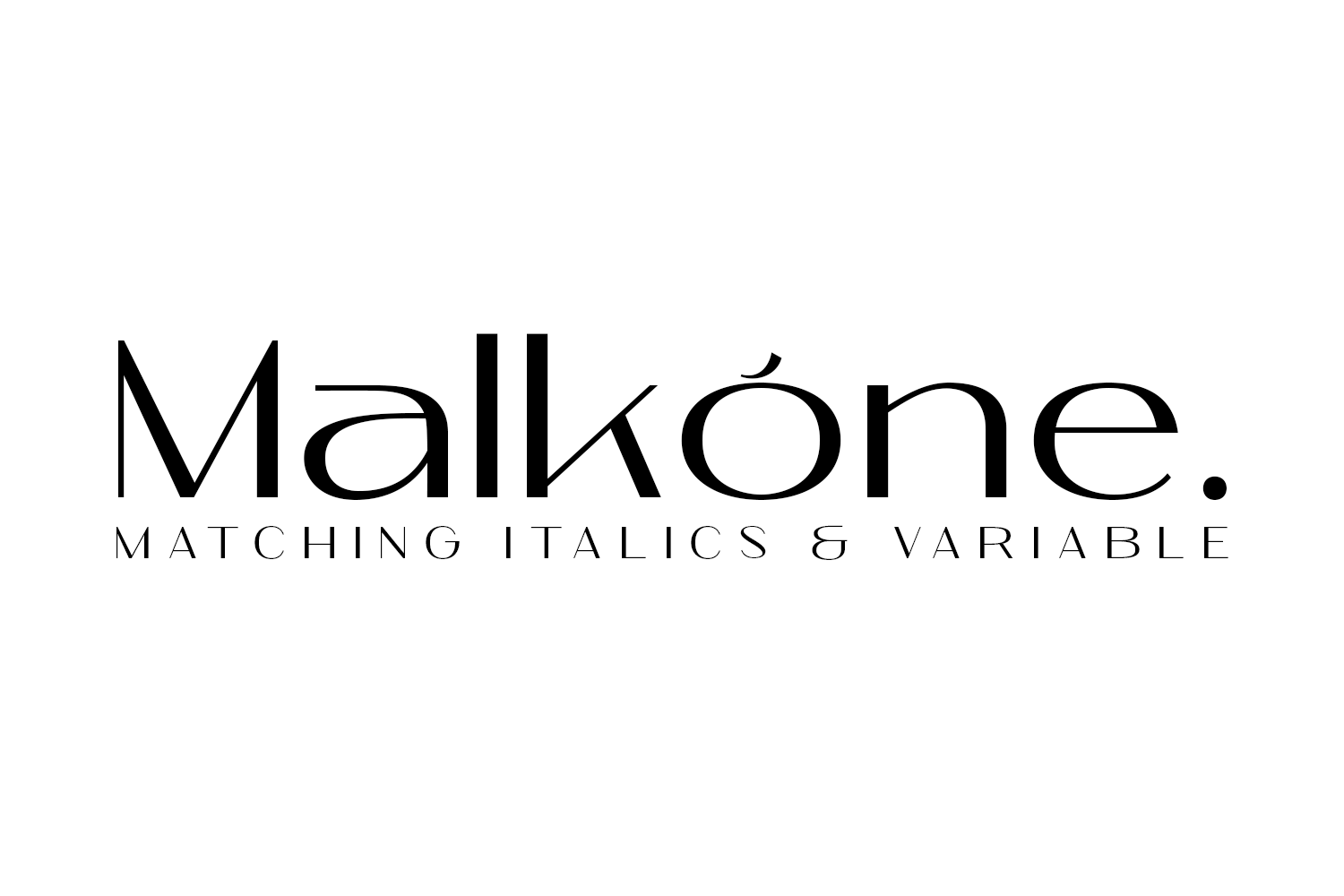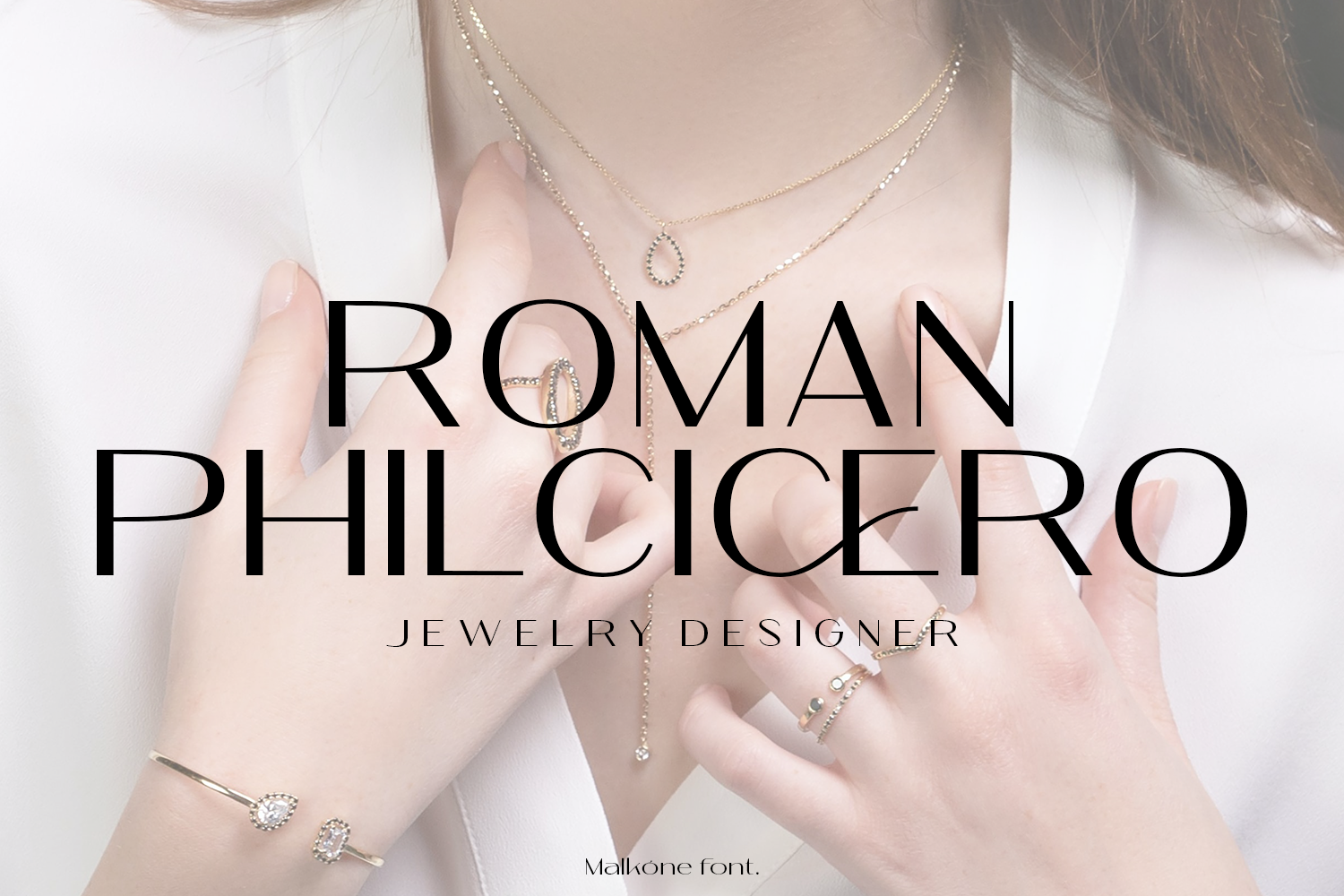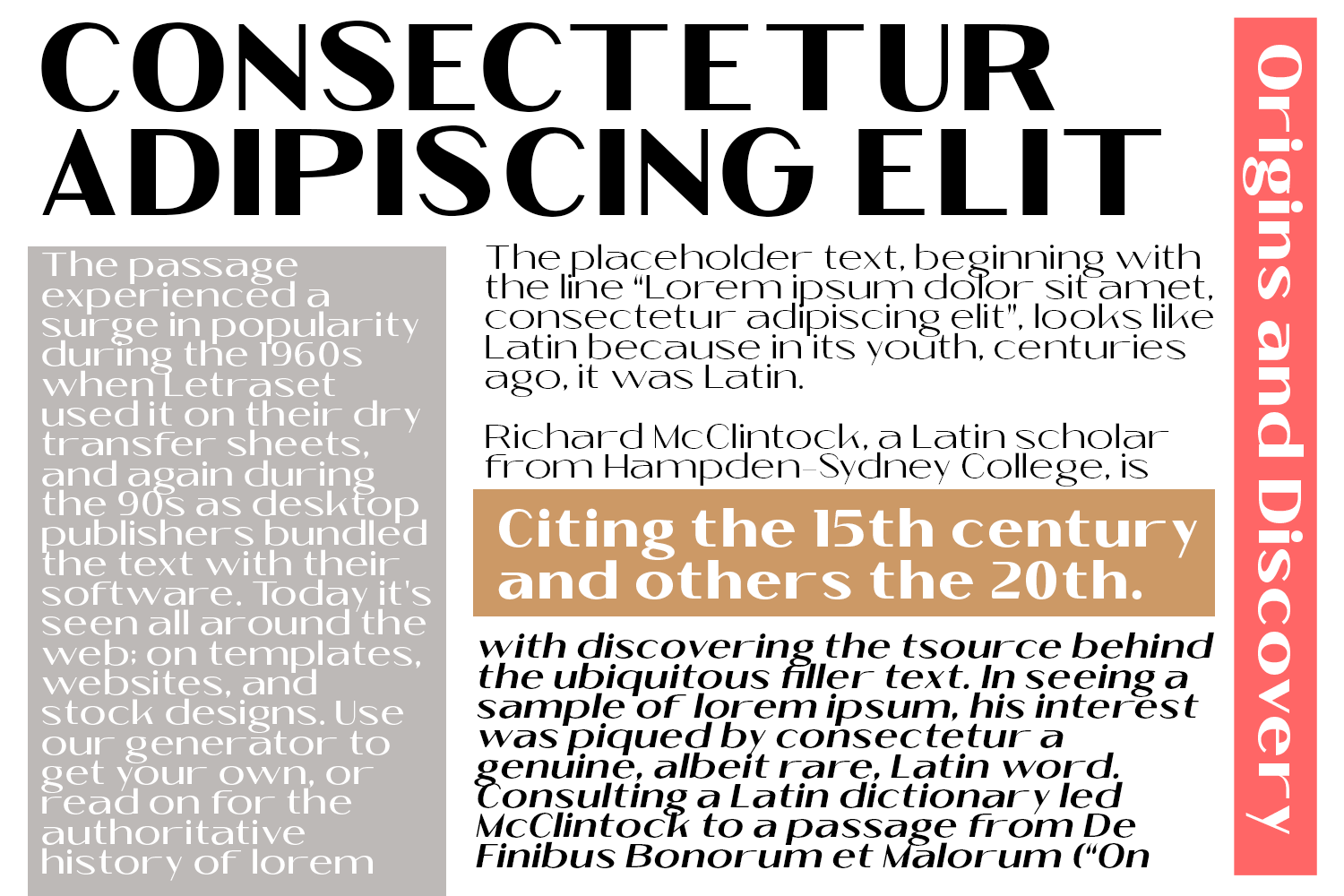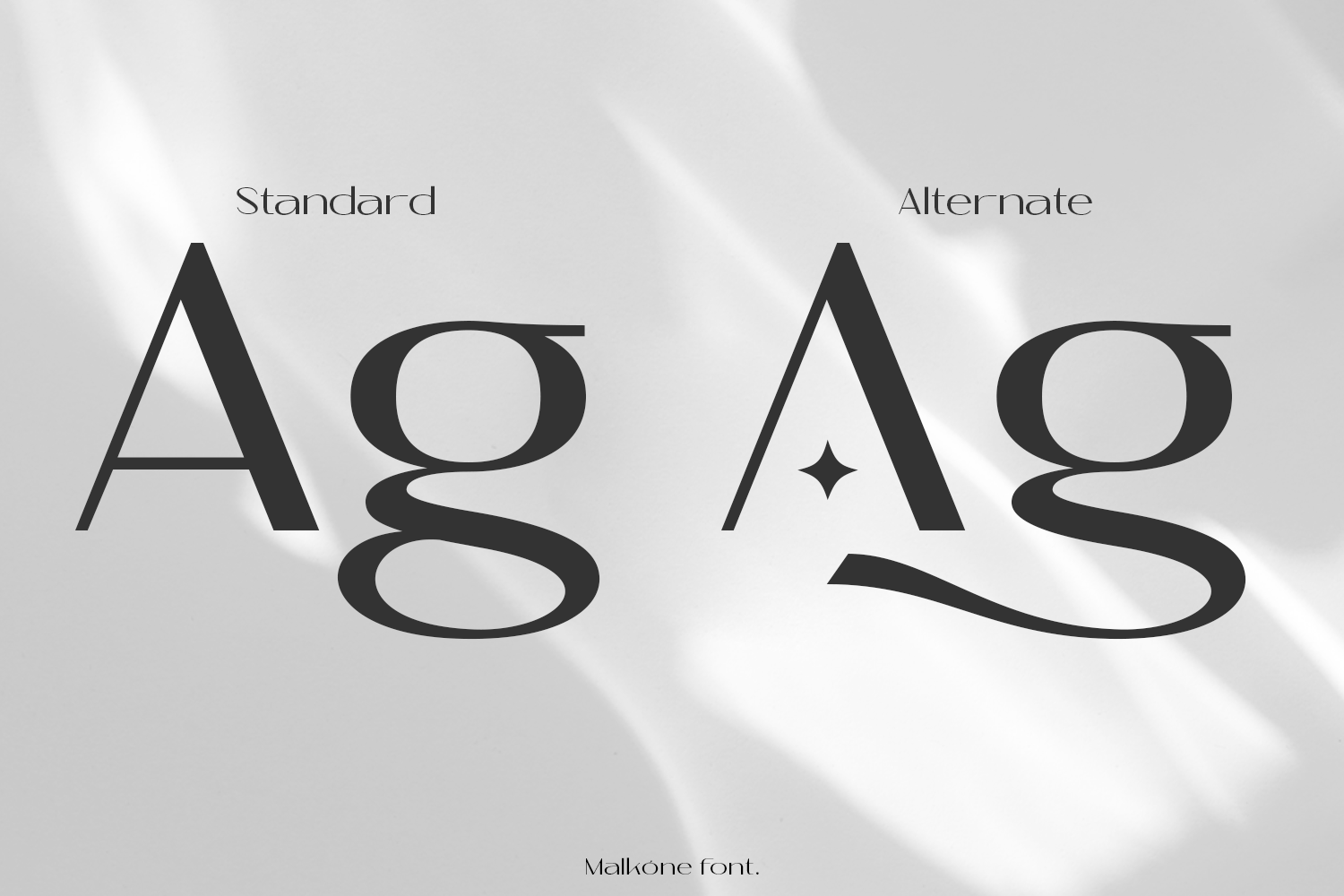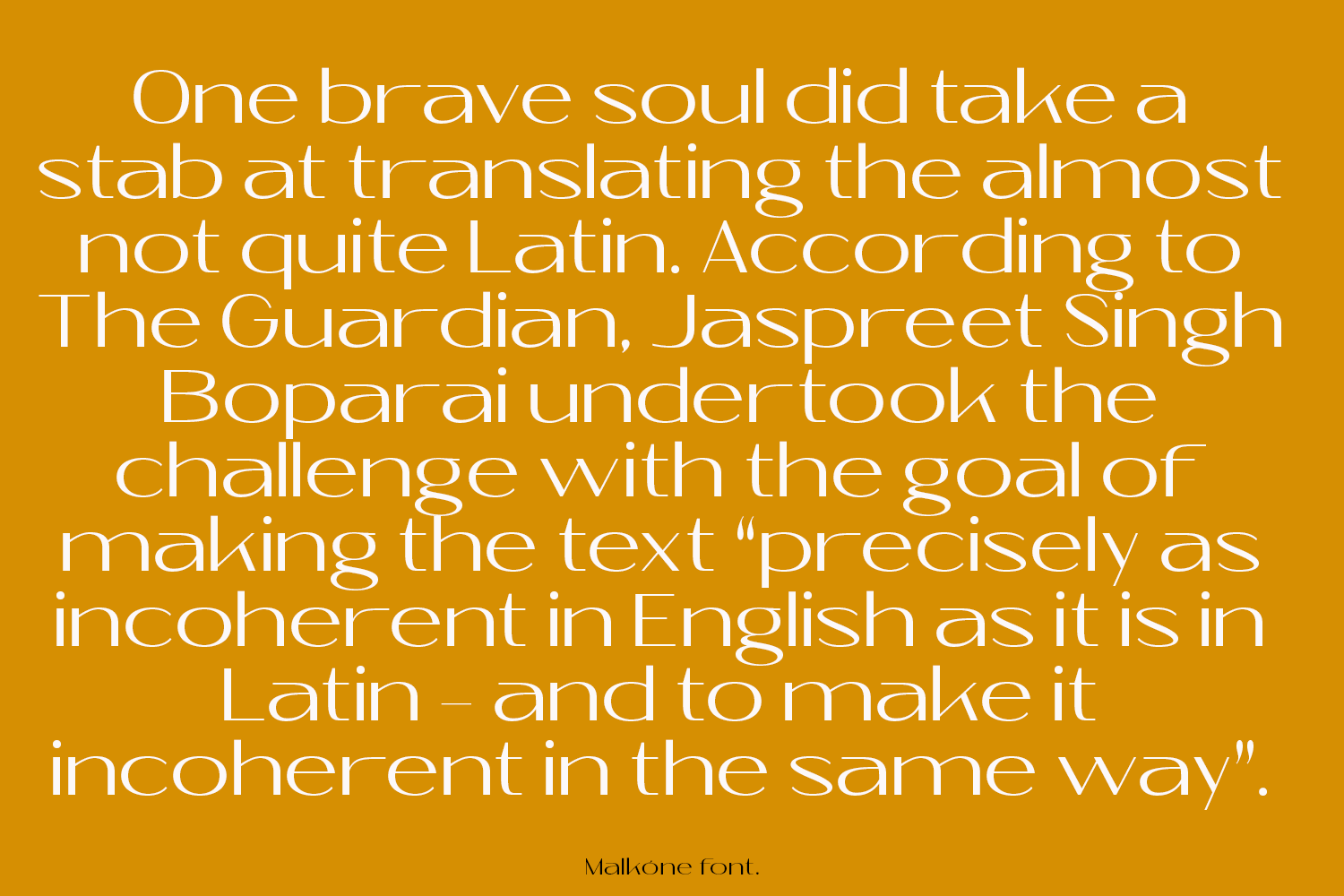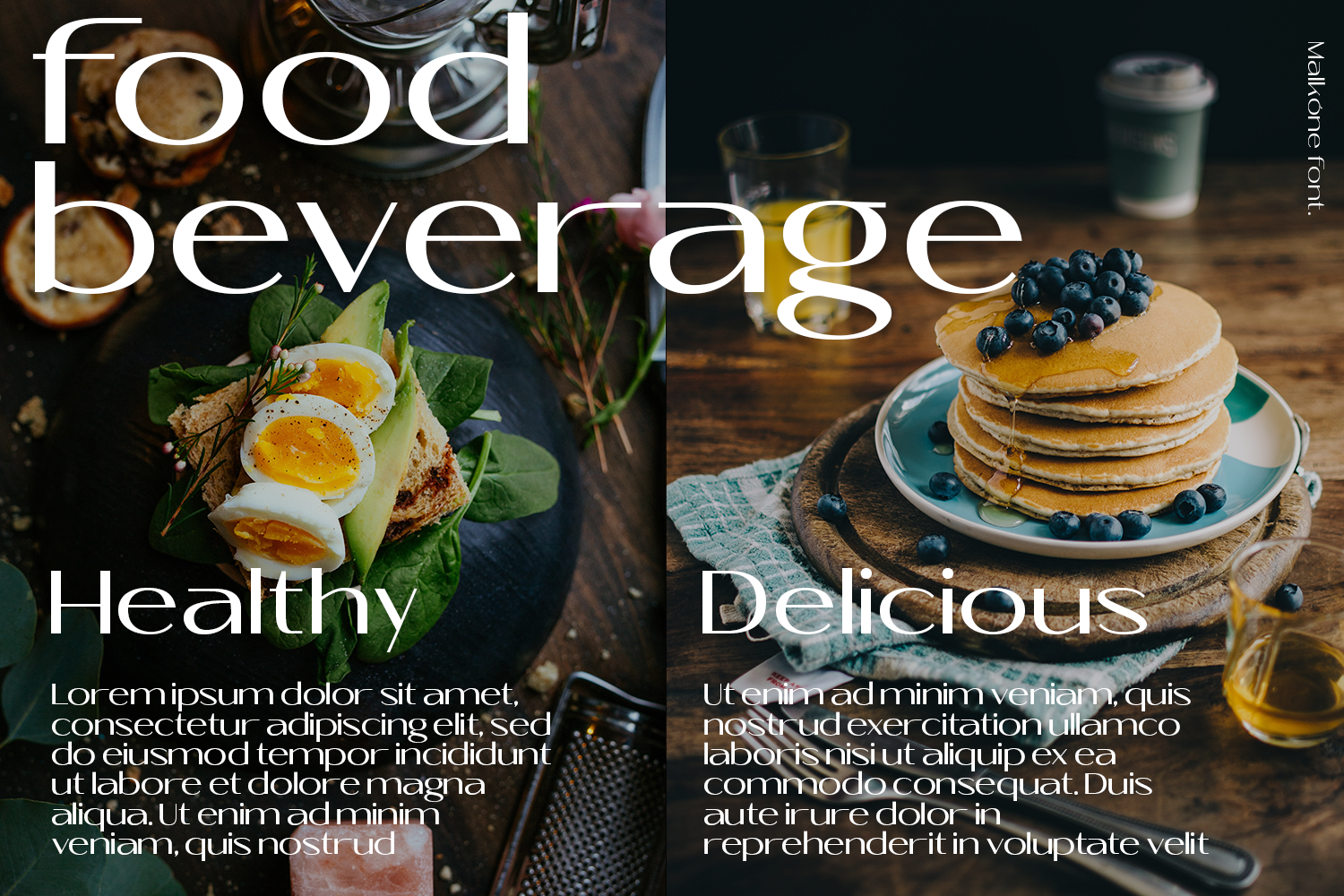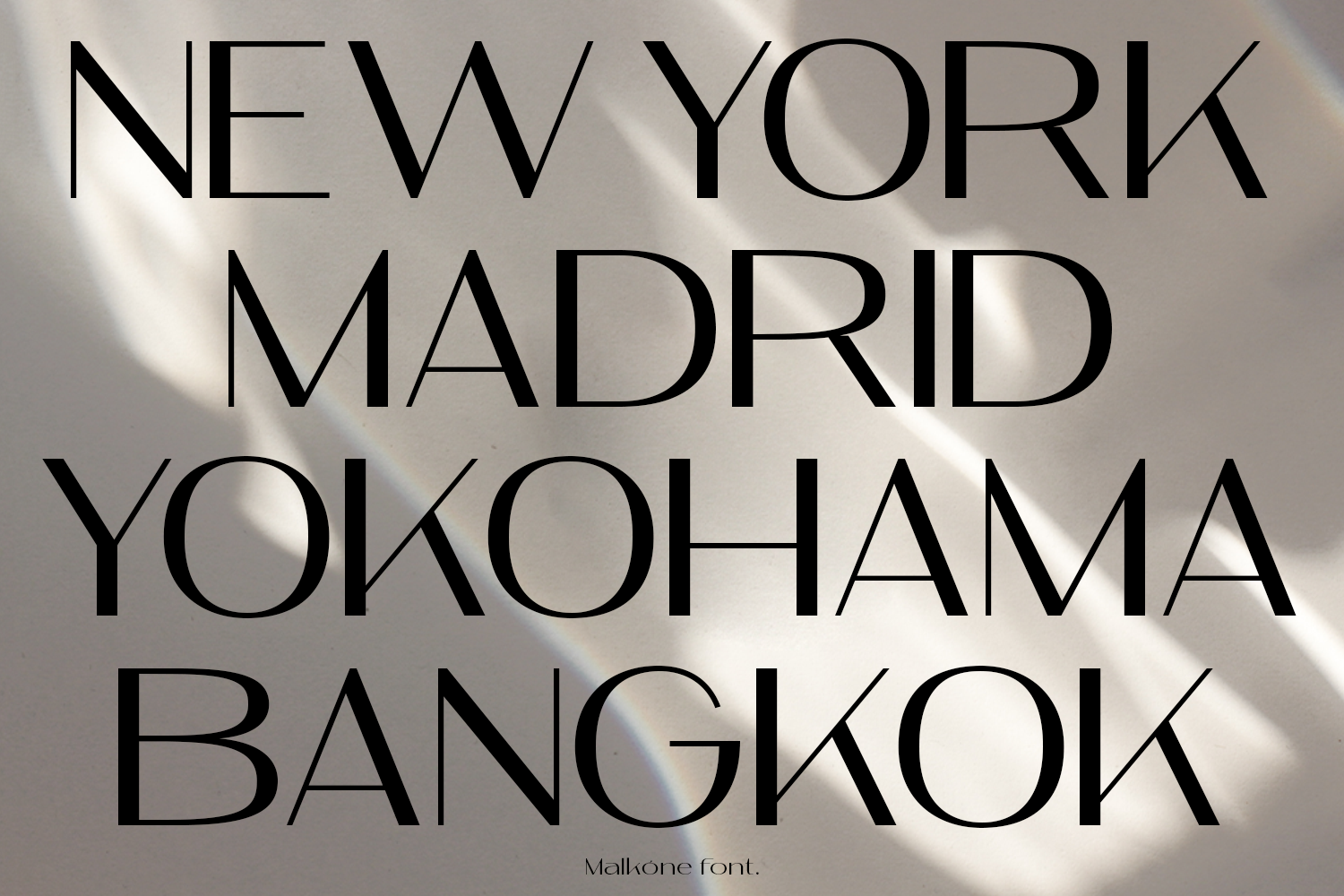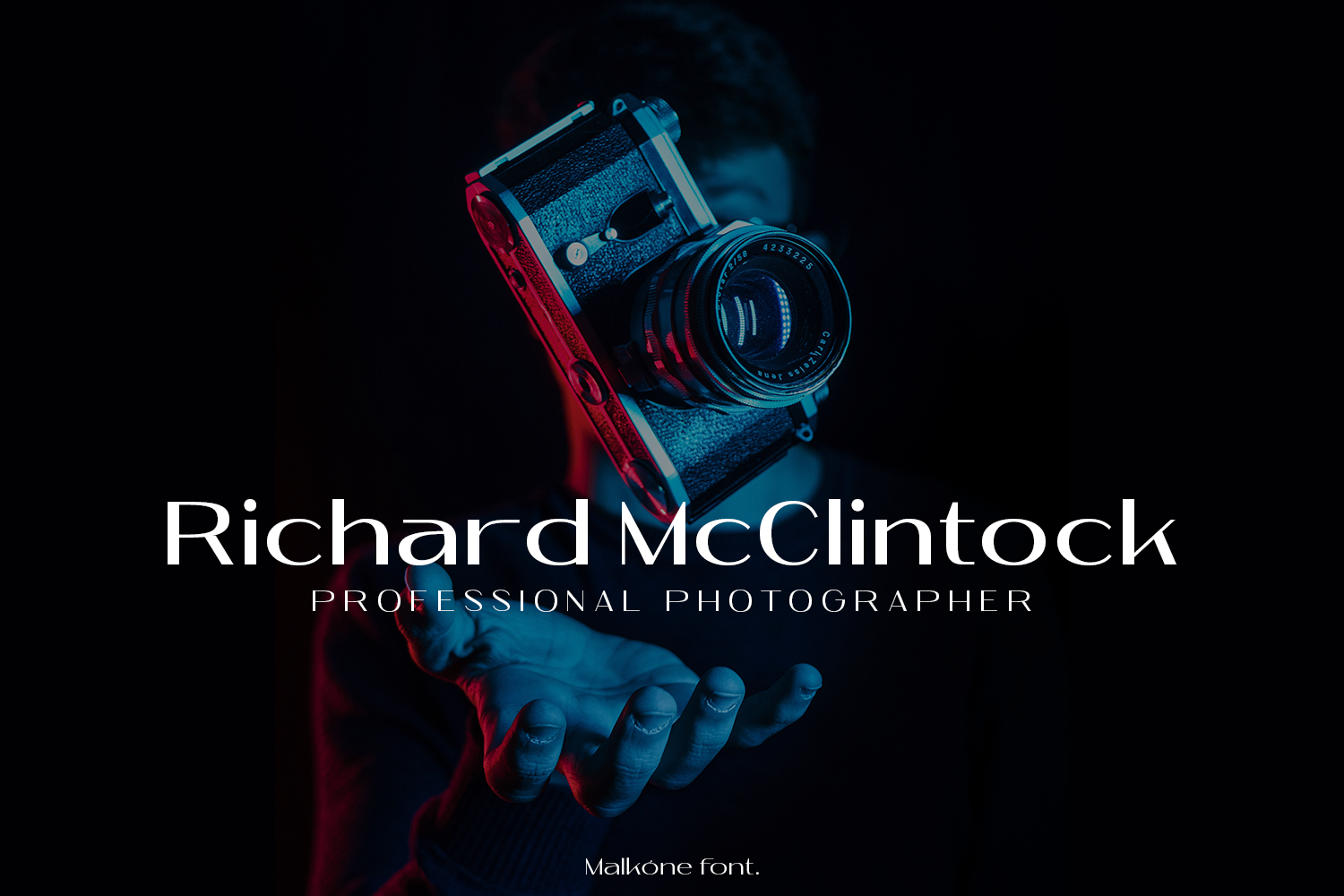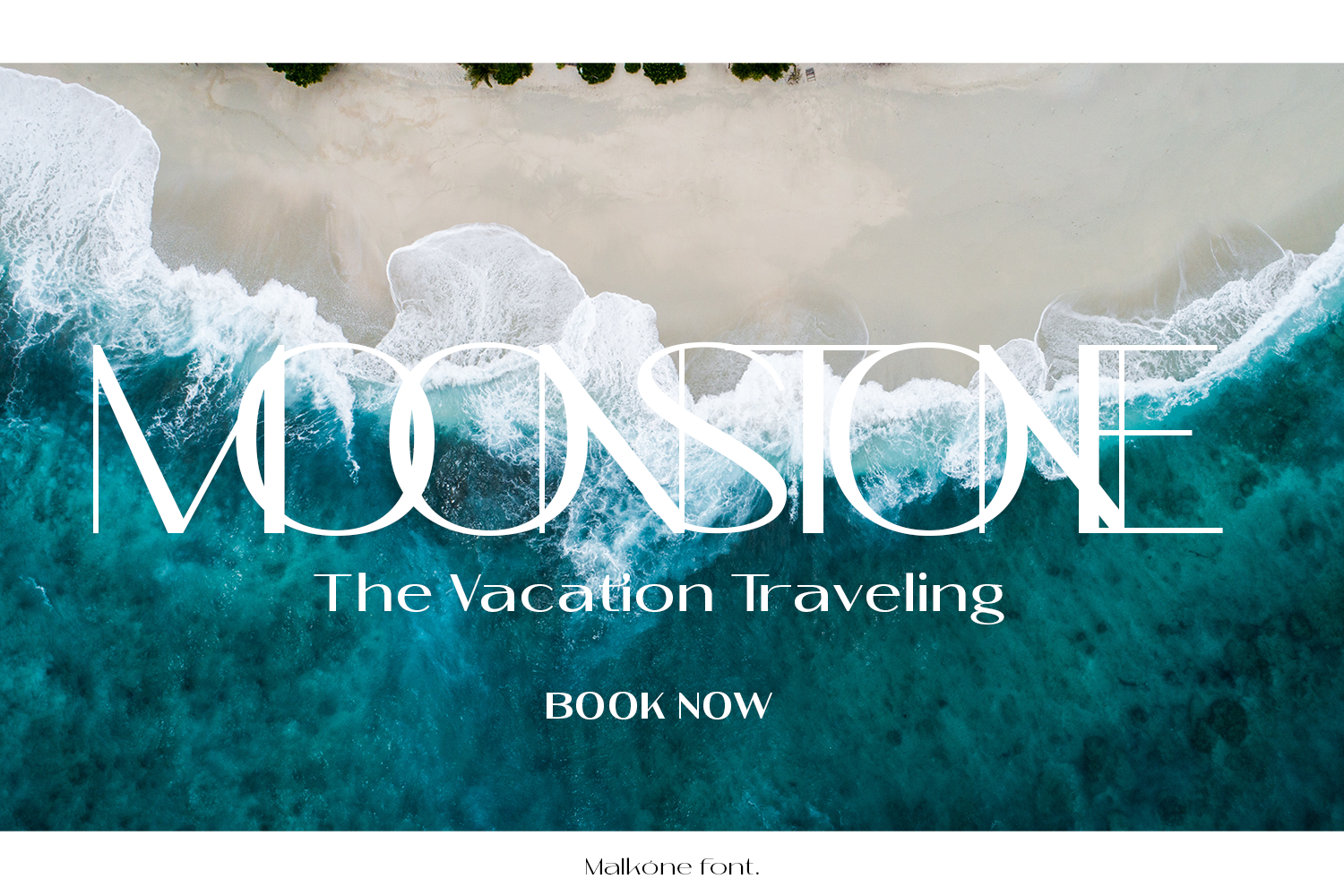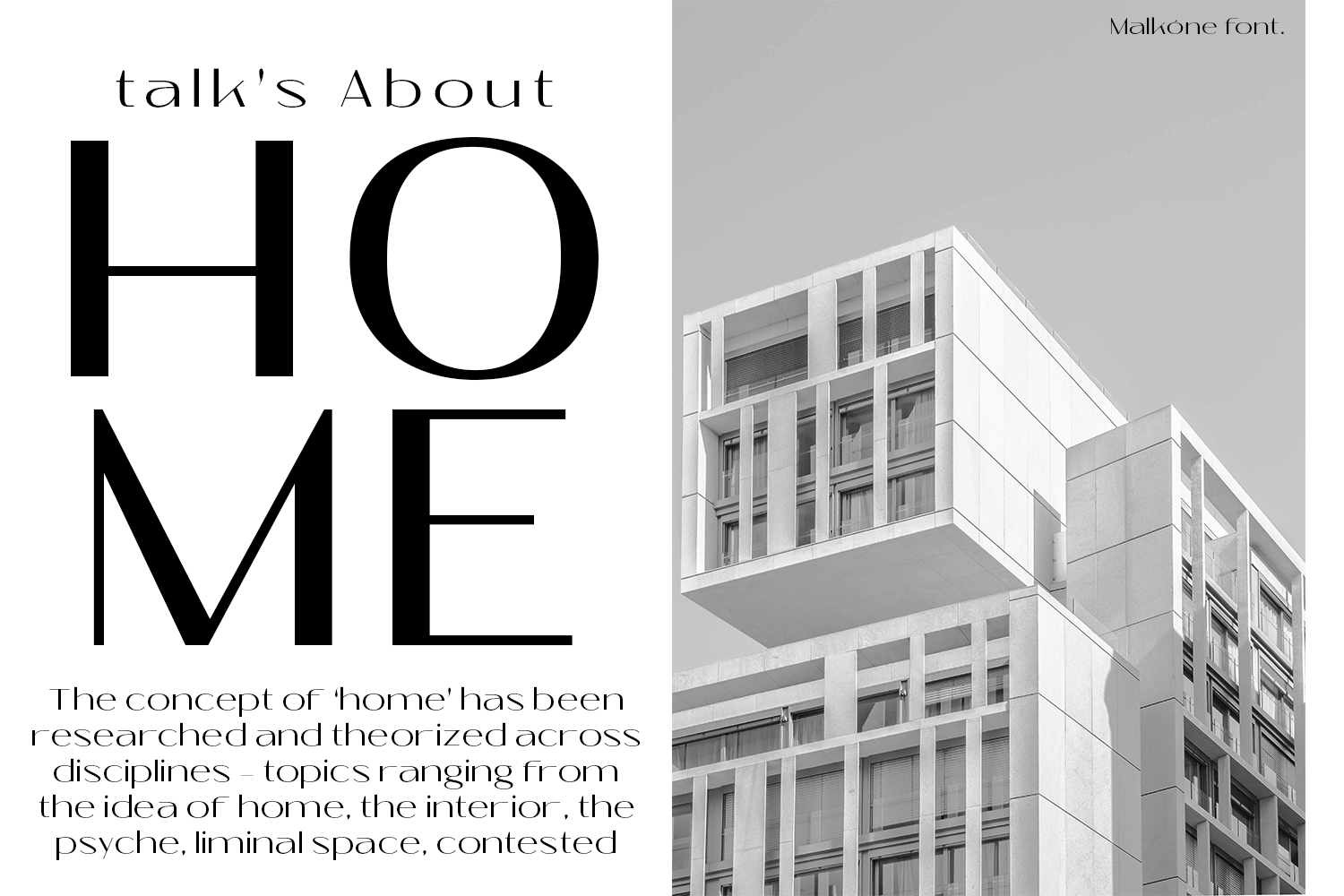
Malkone is a modern sans serif, simplistic, high-contrast sans that is at home in high-end fashion and cultural environments comes in nine weights with various width and weight that you can explore and combine. use this font for any branding, product packaging, invitation, quotes, t-shirt, label, poster, logo etc.
- Multilingual support